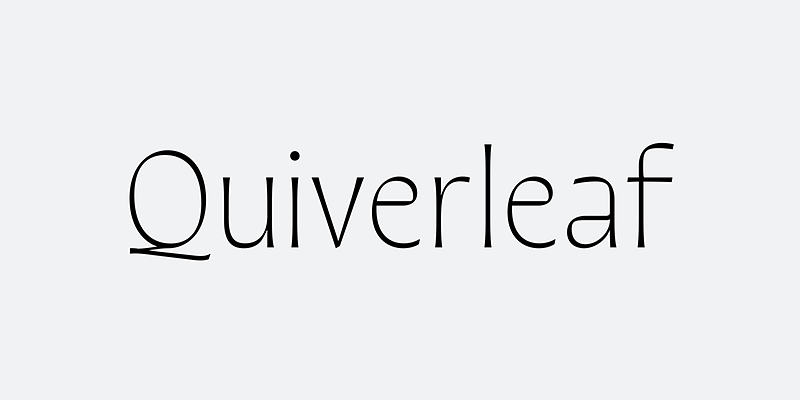
Quiverleaf CF Font Free Download is an elegant and expressive serif typeface that blends high contrast, sharp details, and graceful curves. Perfect for luxury branding, book covers, fashion editorials, and upscale packaging, this font captures attention with its refined and artistic design while maintaining excellent readability.
Quiverleaf CF features a range of weights and stylistic alternates, giving designers creative flexibility in crafting bold headlines or delicate typographic compositions. It integrates effortlessly with design tools like Adobe InDesign, Illustrator, and Figma for smooth, professional use across both print and digital projects.